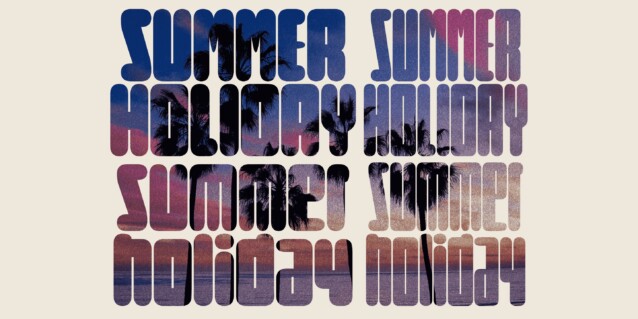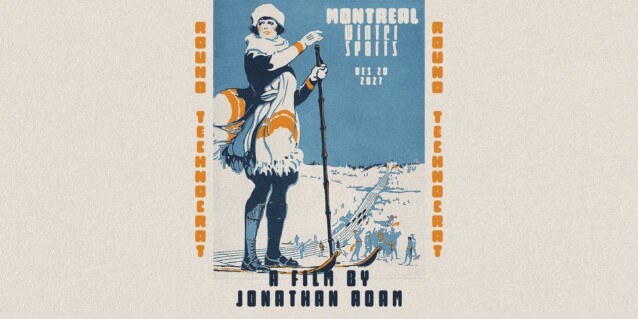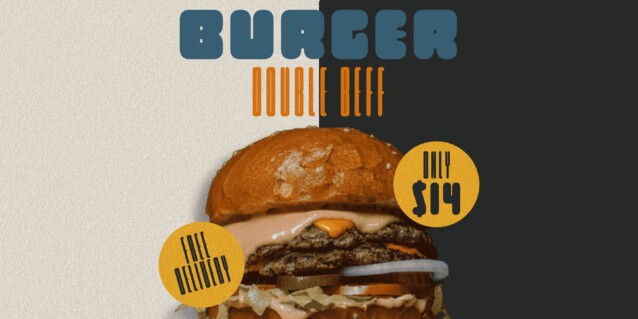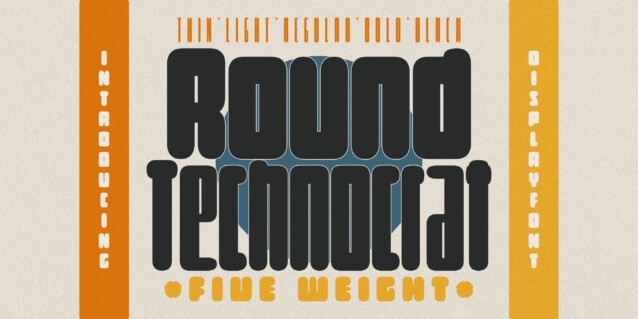
Round Technocrat Font
Round Technocrat Font is a gorgeous soft-grunge sans serif font with thick, chunky lines and cute curves. The font family is perfect for designs that require a balance of rigidity and fluidity, making it suitable for both professional and creative projects. The Round Technocrat font family features five weights: Thin, Light, Regular, Bold, and Black, offering a diverse selection of styles to elevate your designs and give them a contemporary edge. The font is built with advanced OpenType functionality and has a guaranteed top-notch quality, containing stylistic and contextual alternates, ligatures, and more features; all to give you full control and customizability. It has extensive lingual support, covering all Latin-based languages, from Northern Europe to South Africa, from America to South-East Asia. It contains all characters and symbols you’ll ever need, including all punctuation and numbers.